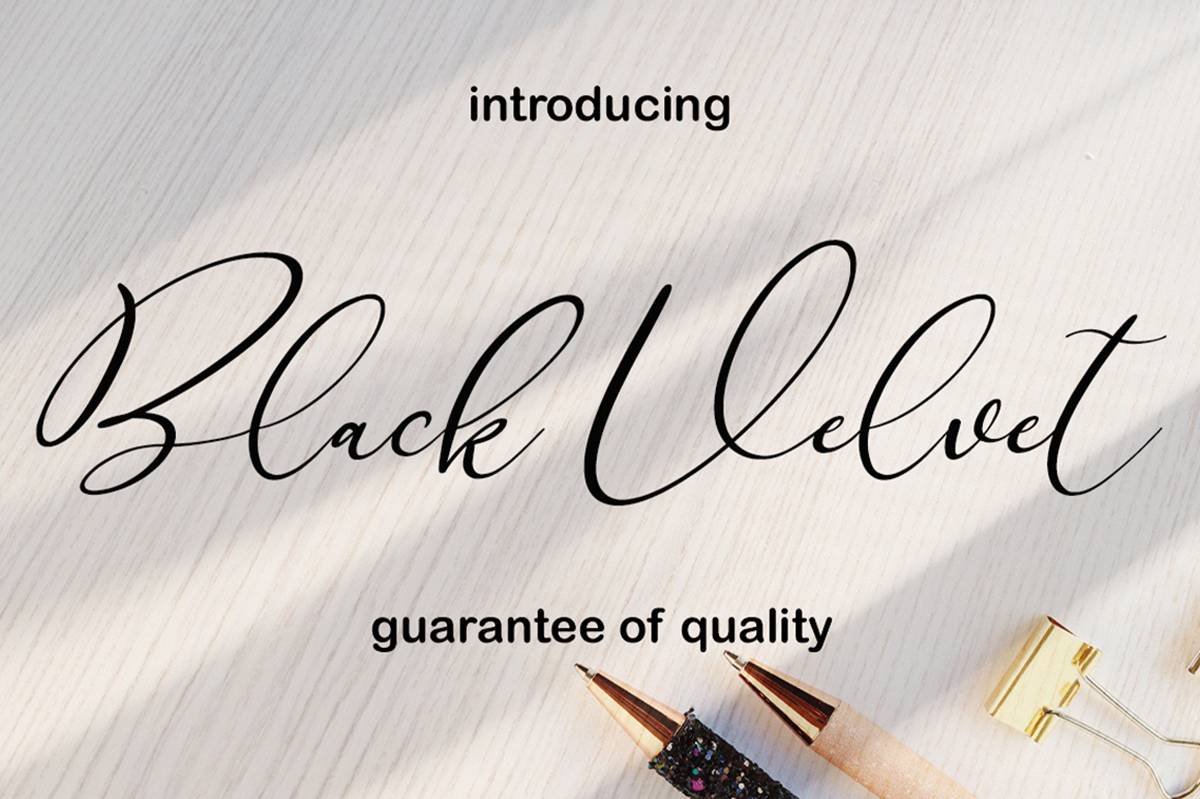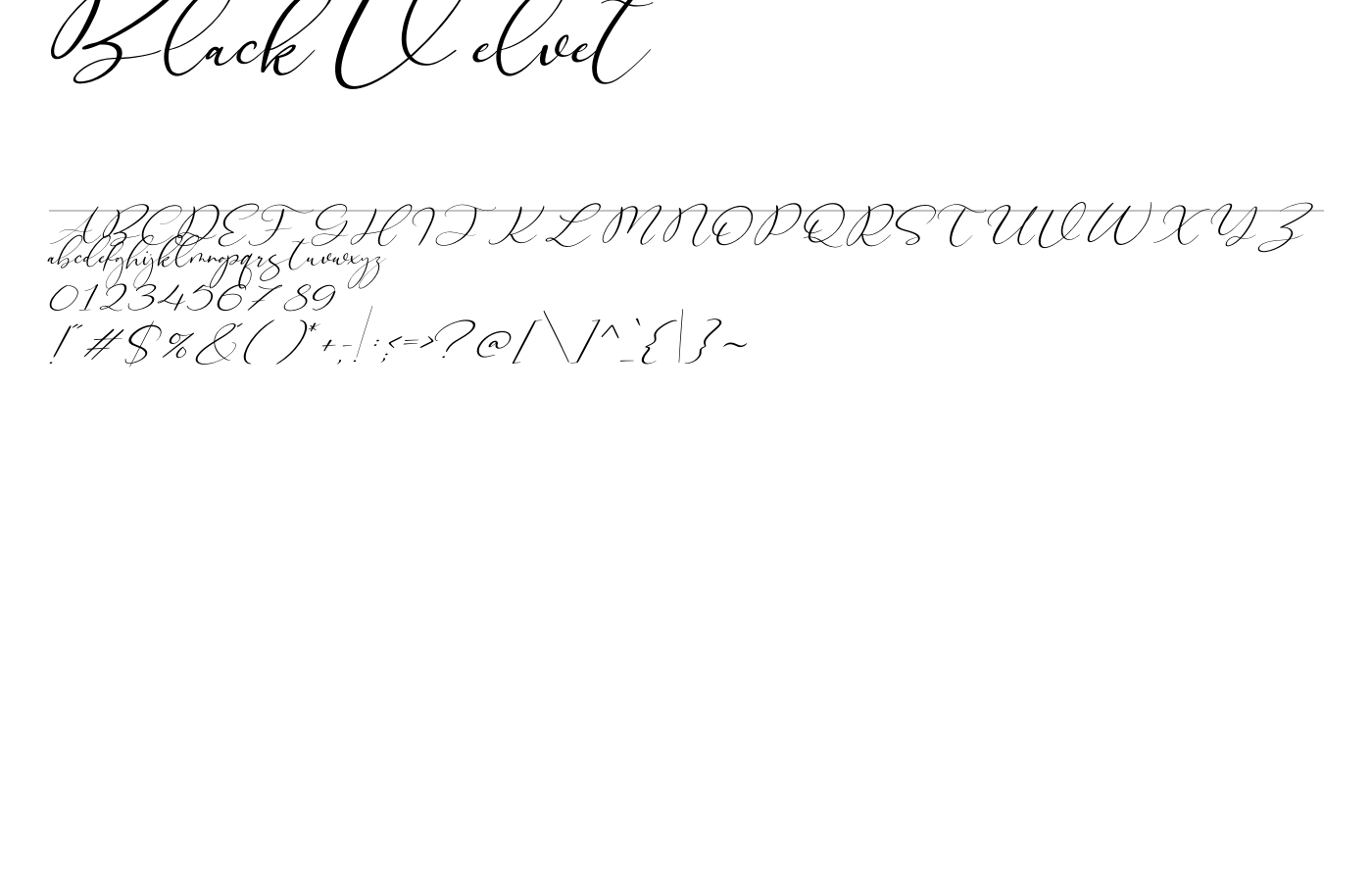
Black Velvet is an elegant, high-contrast script font with delicate, flowing strokes that evoke a sense of sophistication and charm. Its fine, calligraphic lines and graceful letterforms make it ideal for luxury branding, wedding invitations, and stylish logos where a refined, feminine touch is desired. This font works best in large sizes or headlines, adding an artistic and personal feel to designs.
Black Velvet Font
About Black Velvet Font
| Font family | Black Velvet Font |
| Release date | 2022-02-25 |
| Designer | warno |